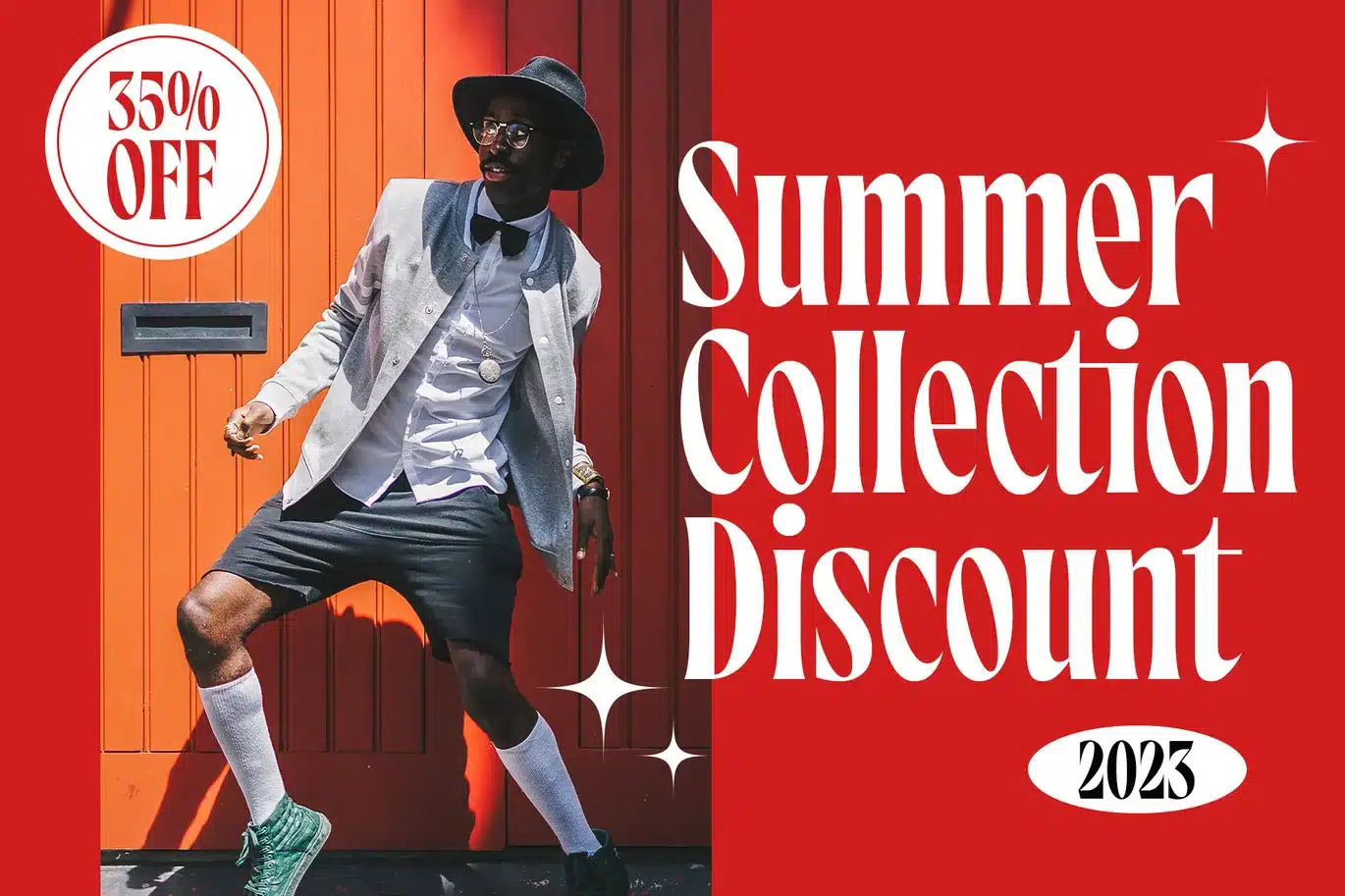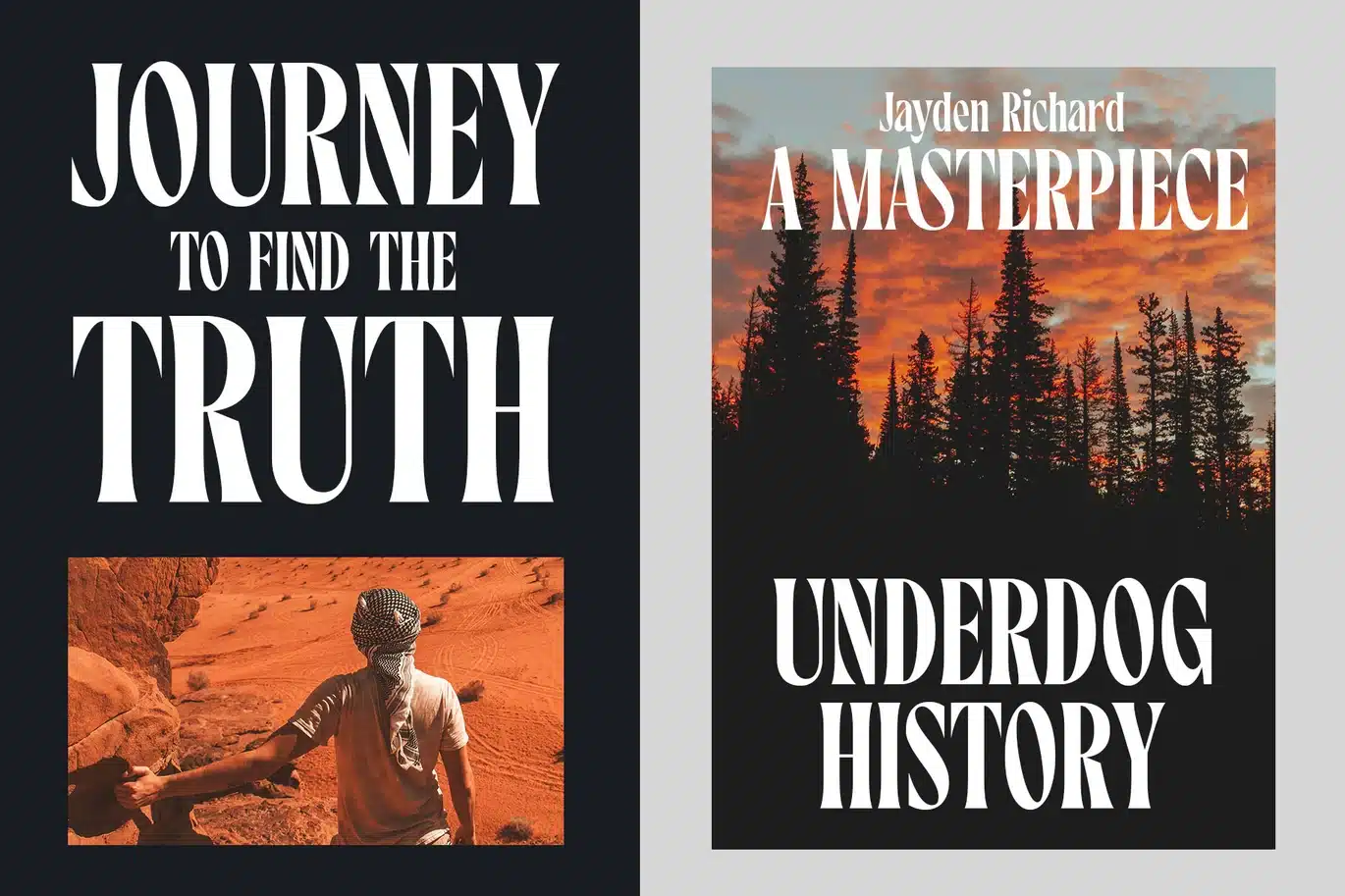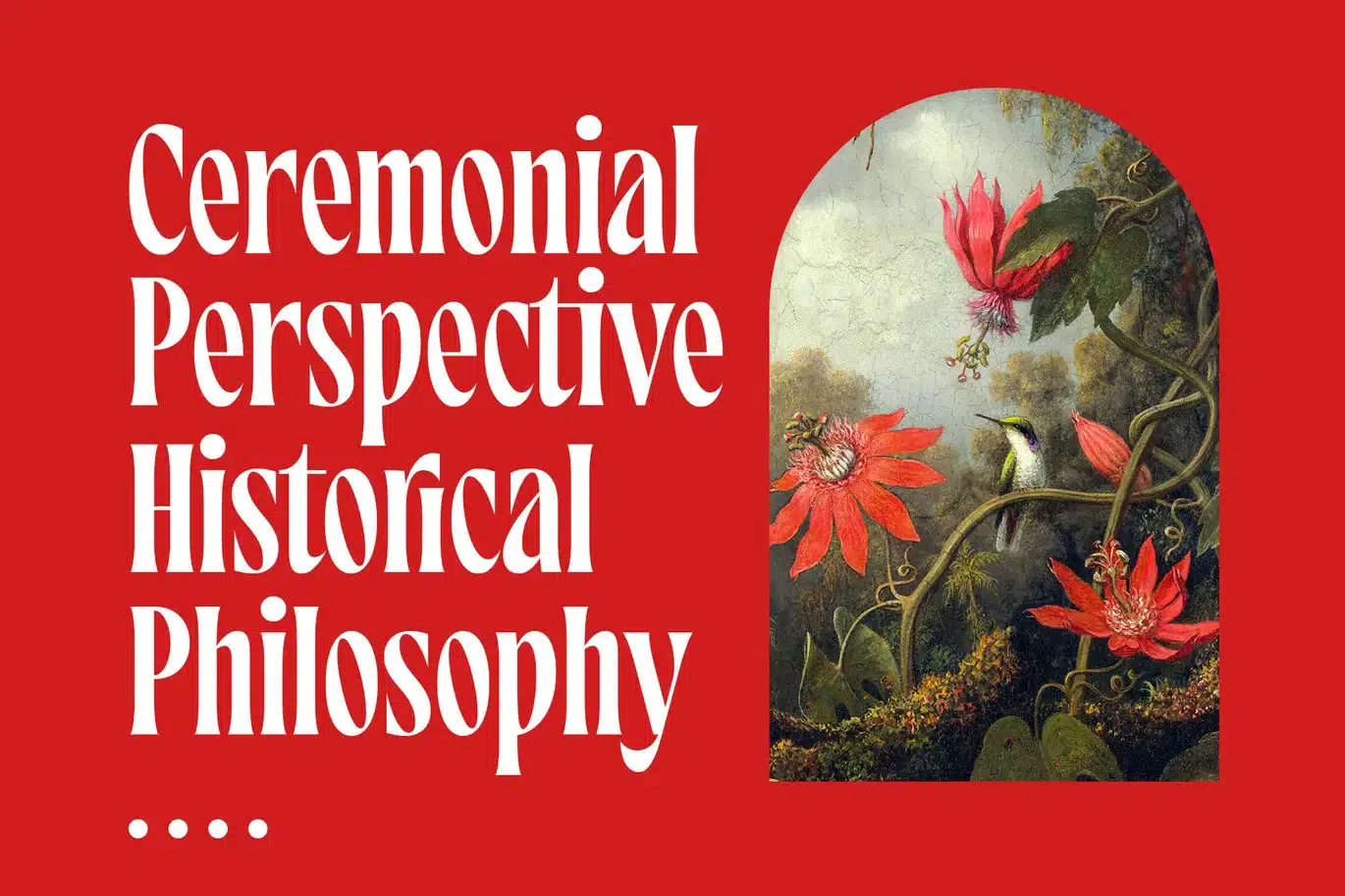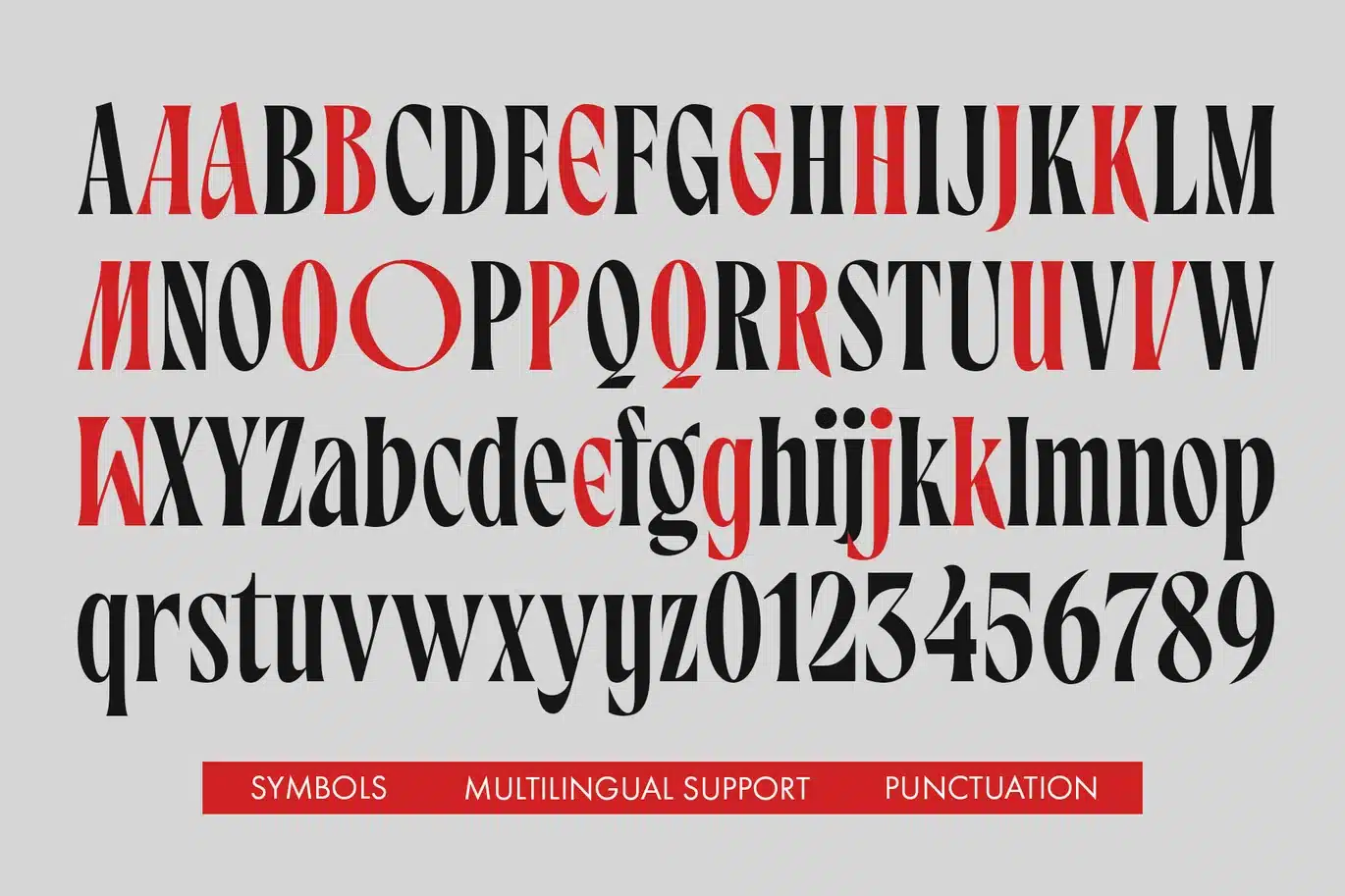
Maltiner Display Font
Introducing Maltiner Display: A versatile, elegant, and sophisticated condensed serif font inspired by classic typography and newspaper headlines. Designed to excel in display settings, Maltiner Display prioritizes typographic excellence, offering a bold yet refined aesthetic.
With unique letterform and sharp edges, Maltiner Display provide ligatures and special characters, the perfect choice for luxury projects. Whether it's a captivating logotype, an elegant editorial layout, a movie title that demands attention, or any other creative endeavor like posters, postcards, or apparel design, this font elevates your work to new heights.
Font featured :
- Symbols
- Stylistic alternates